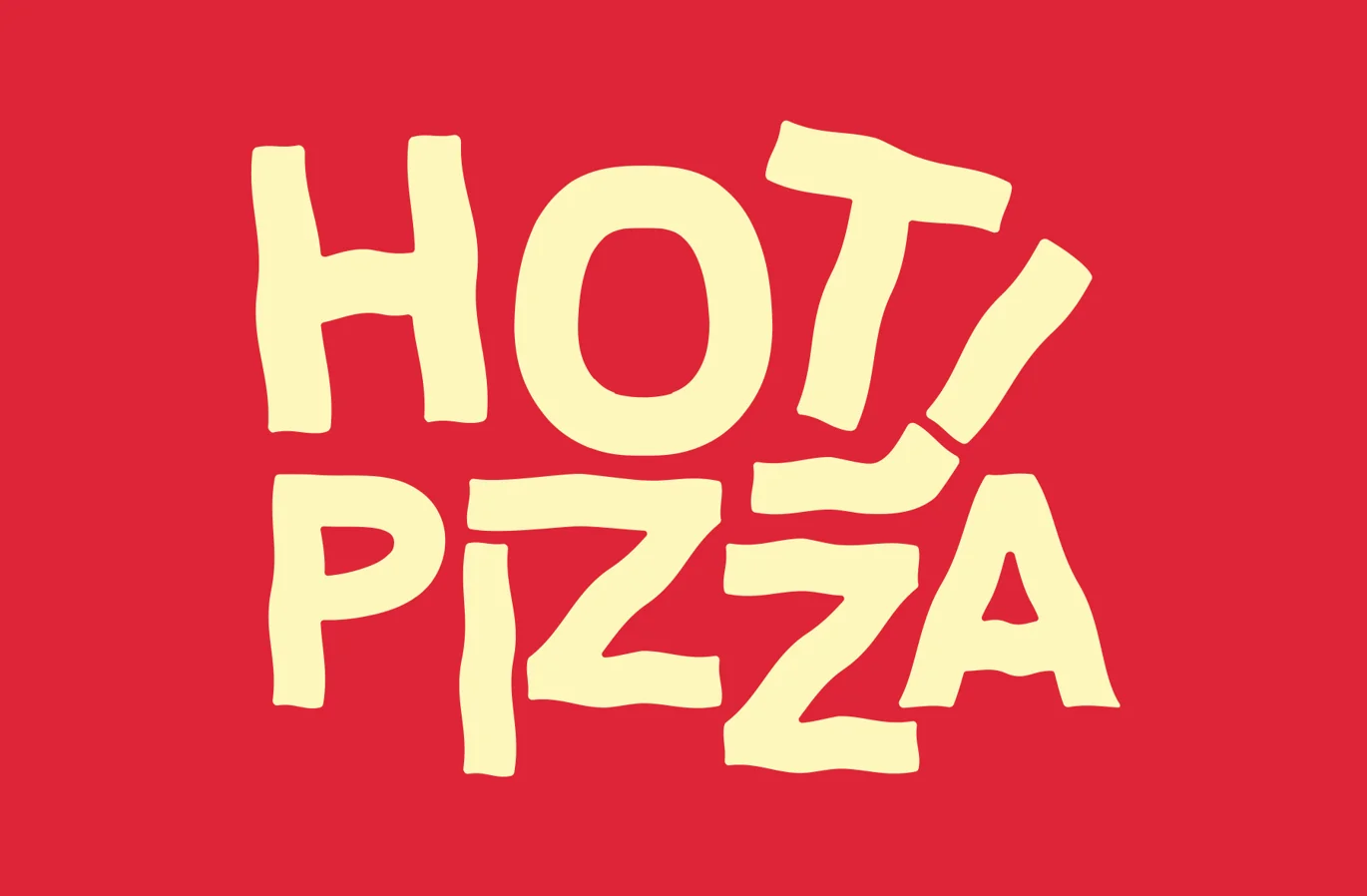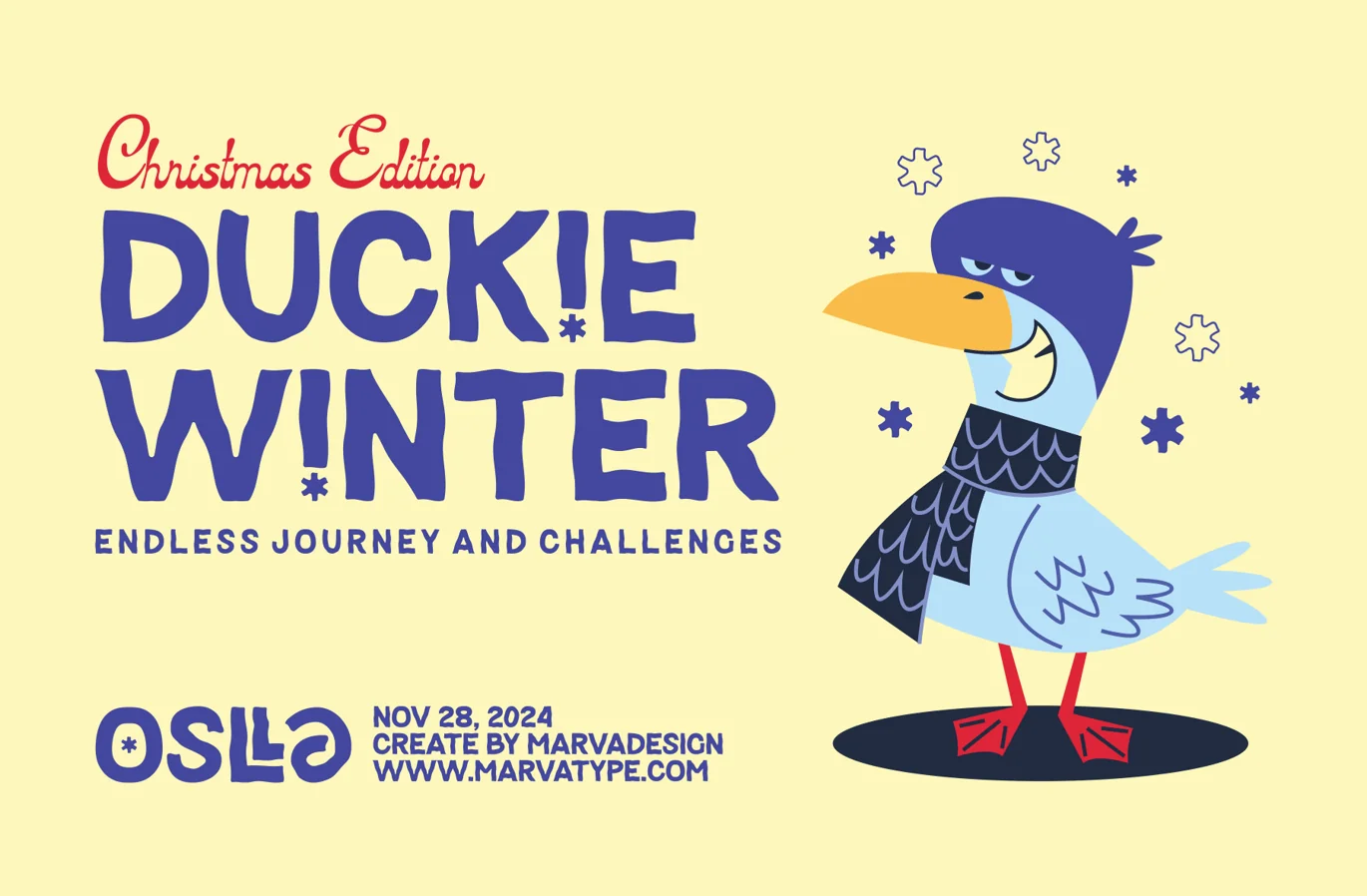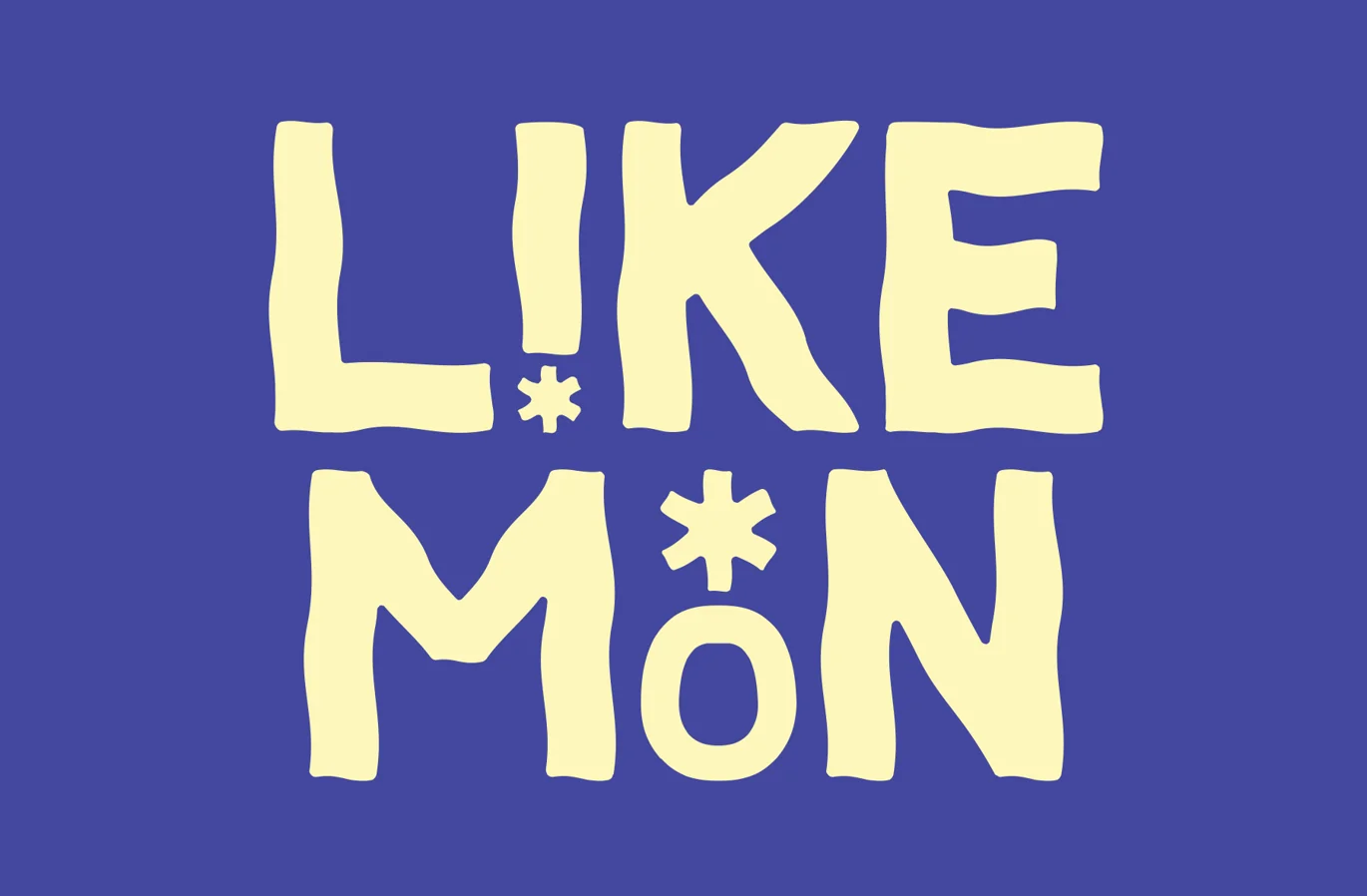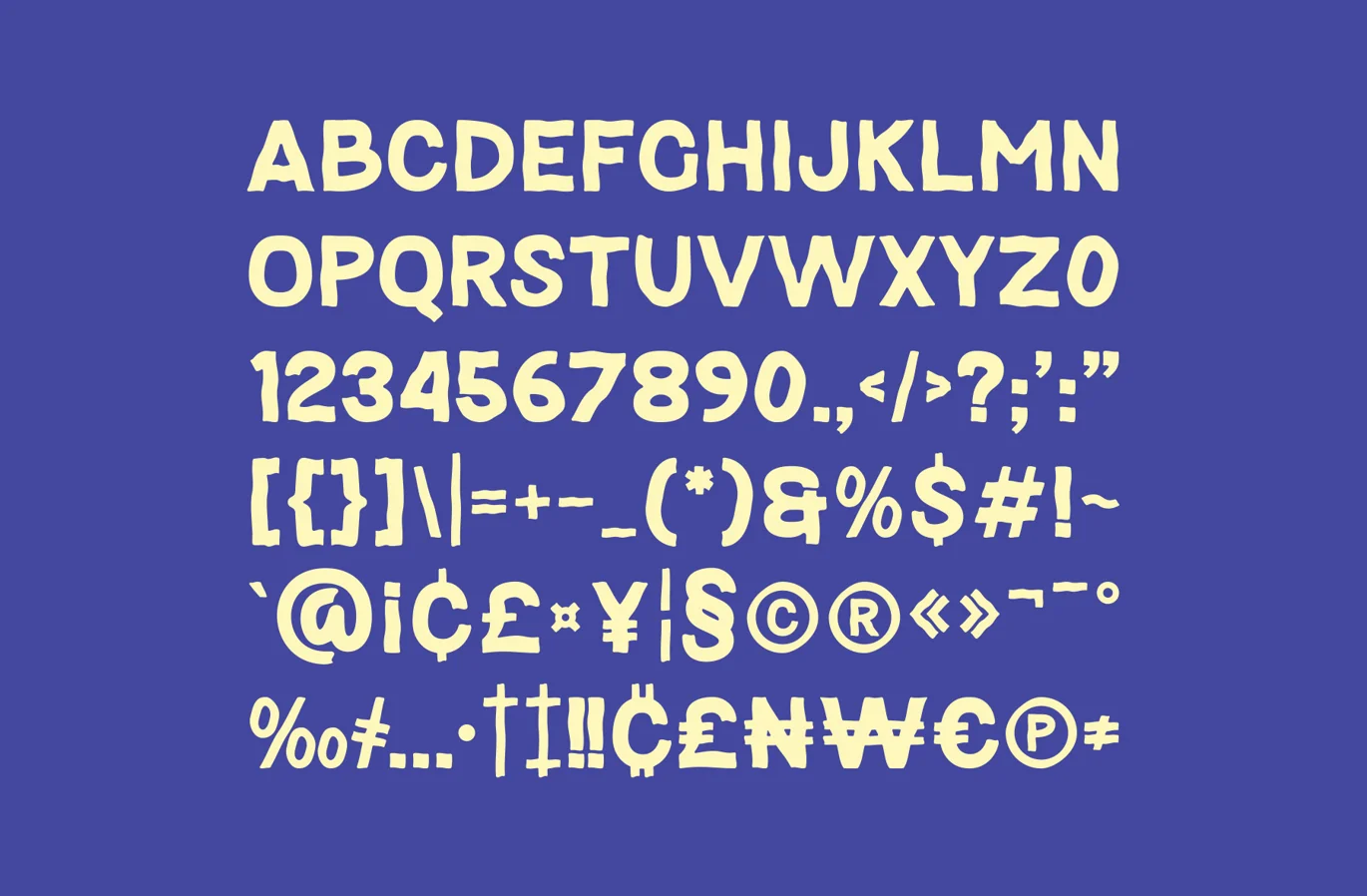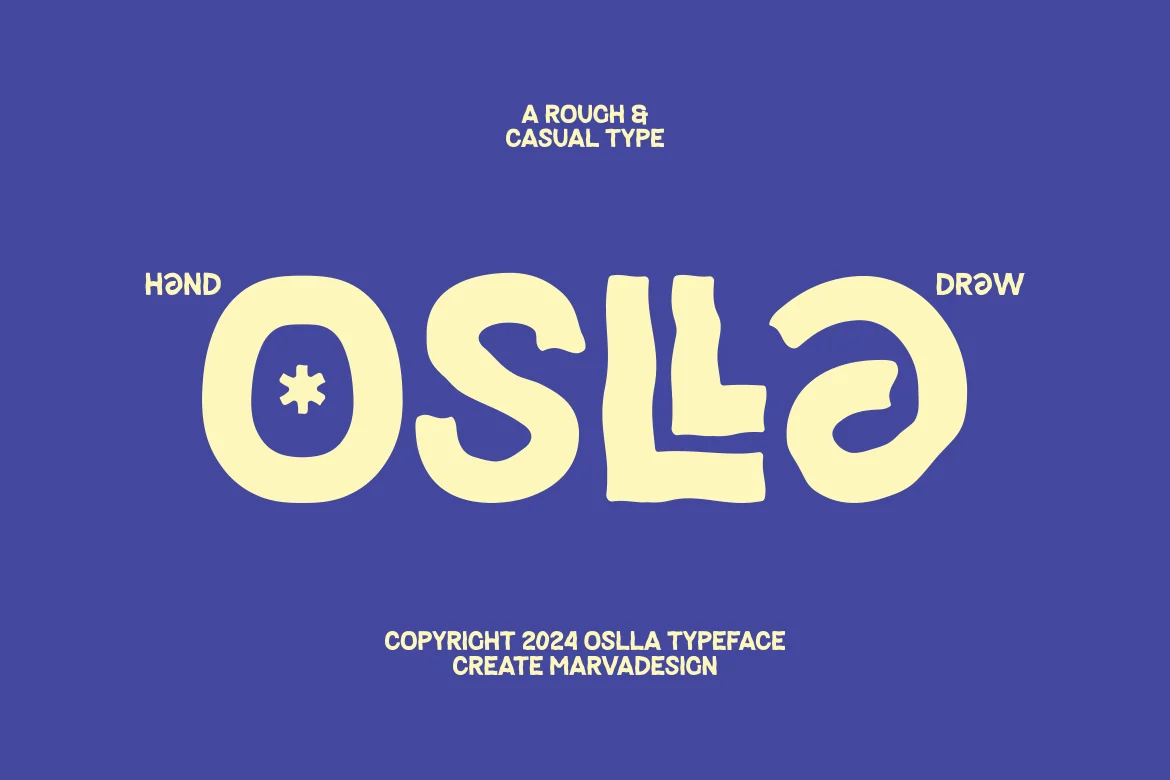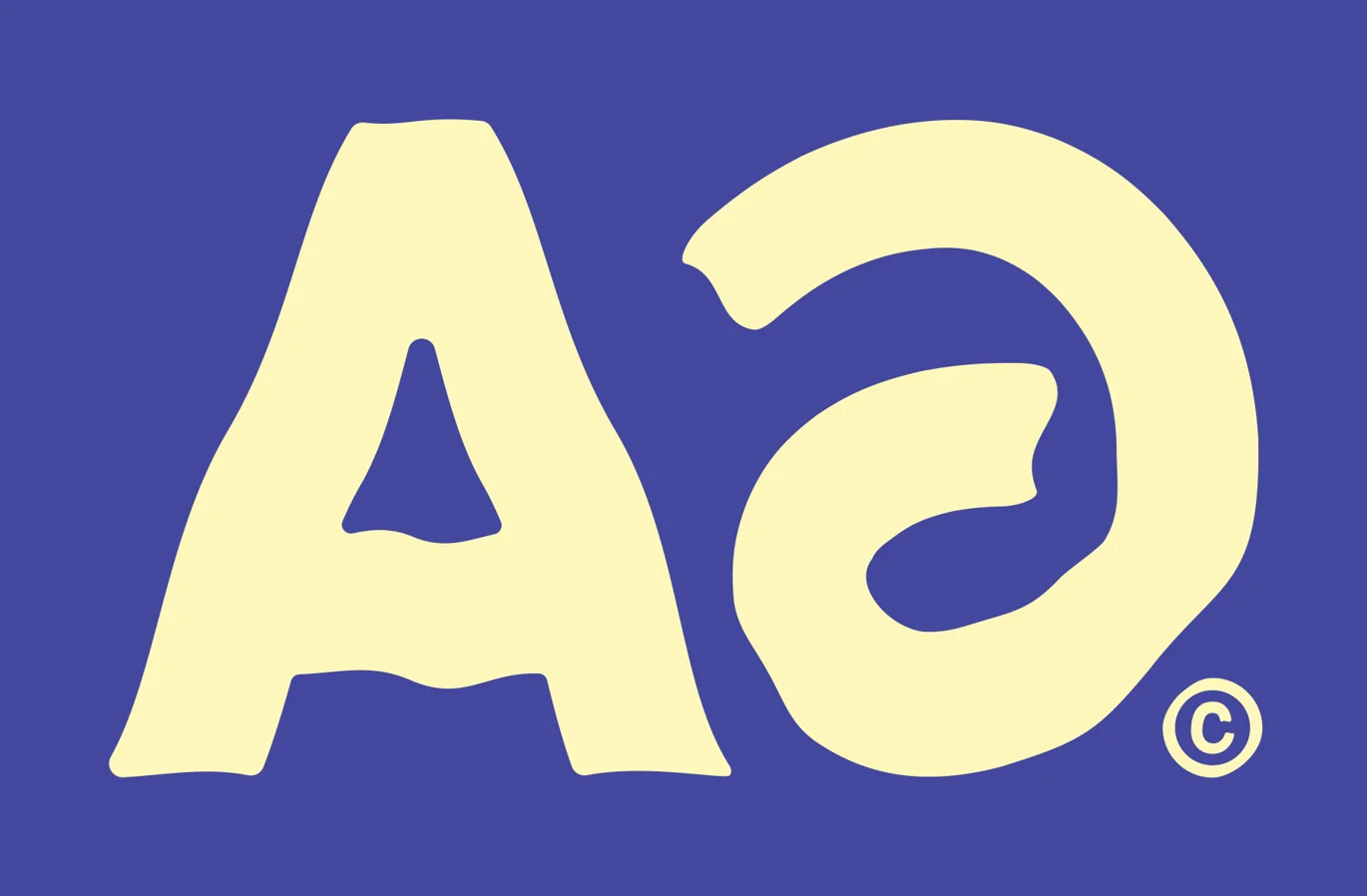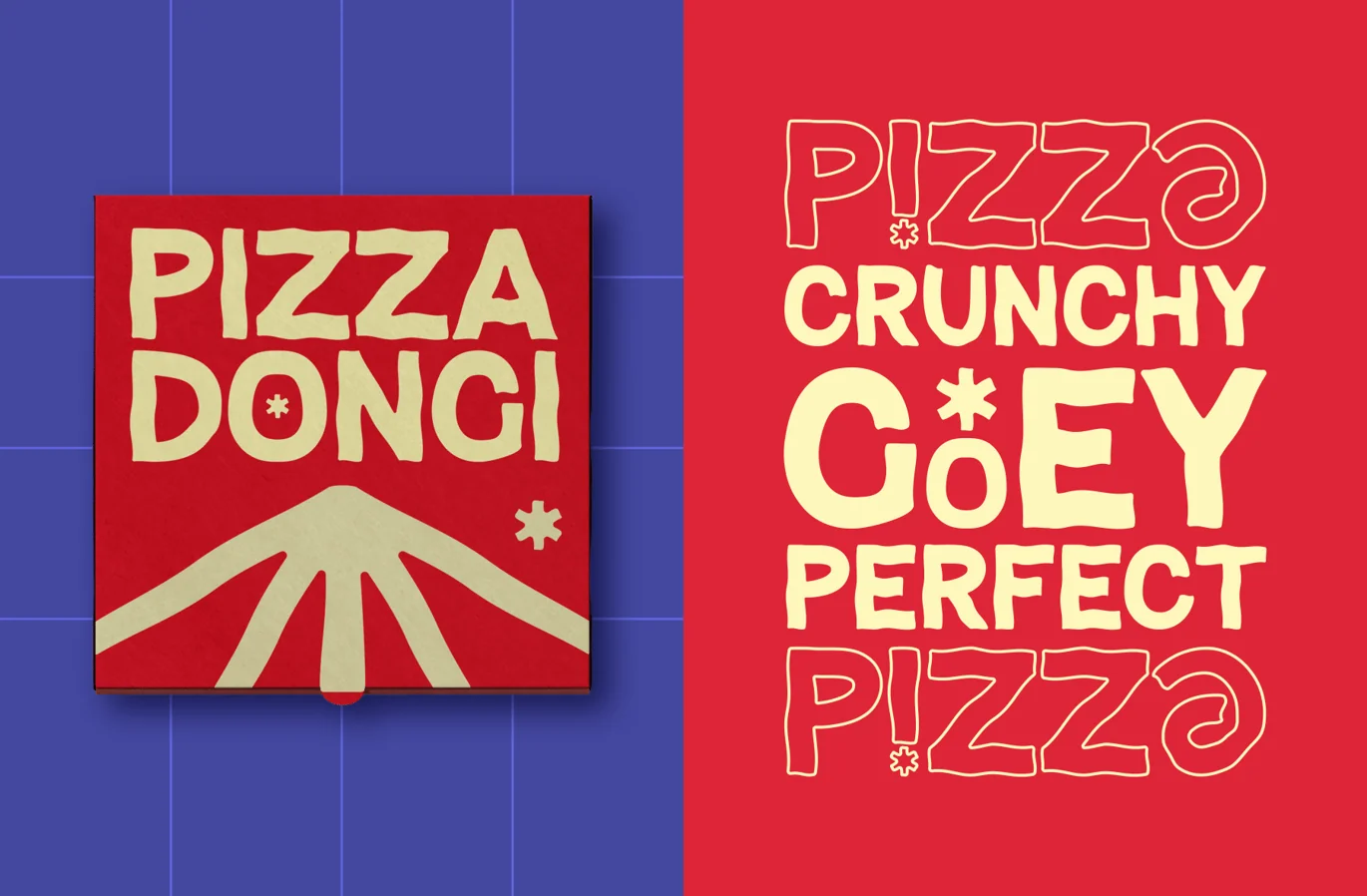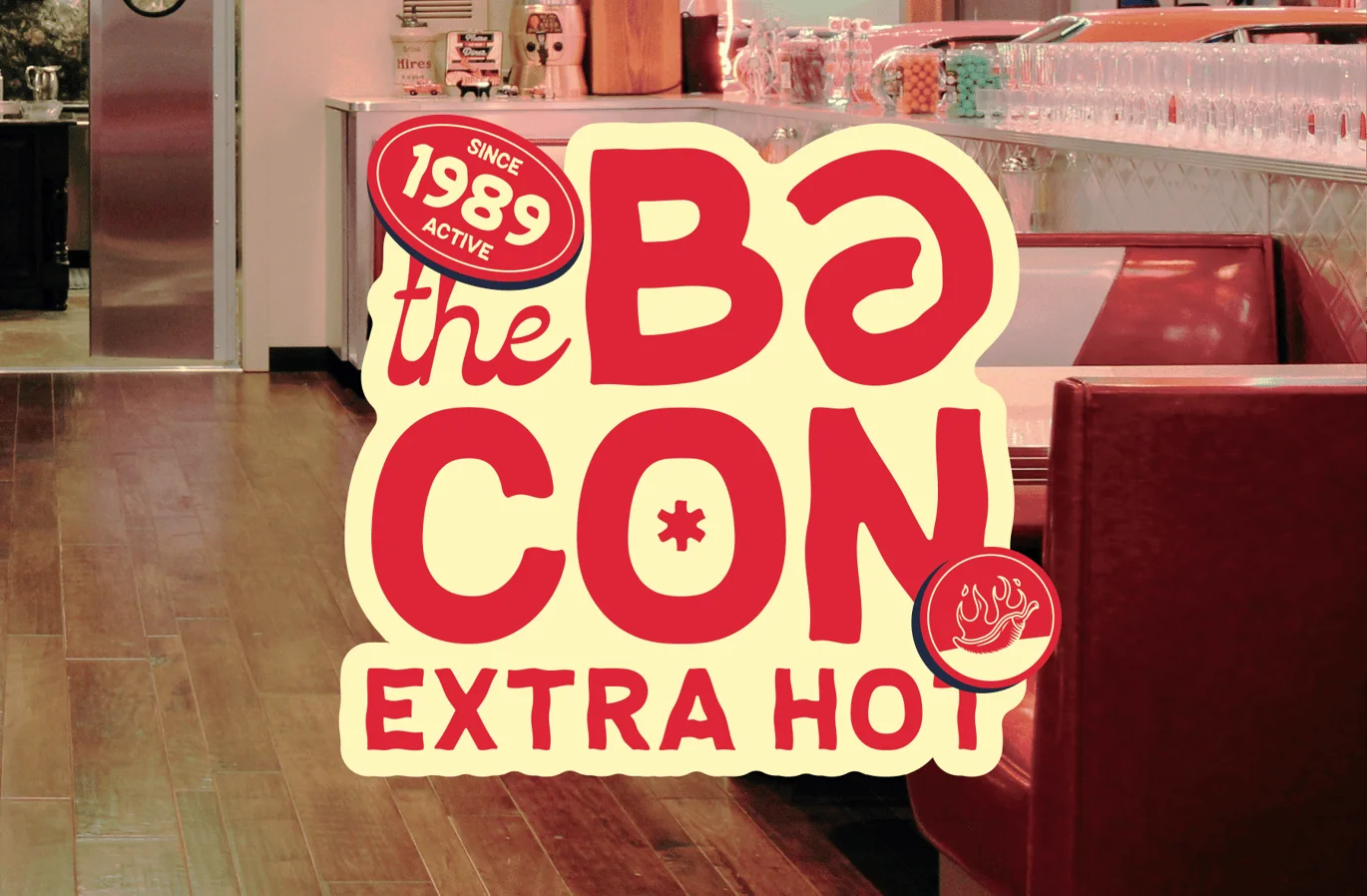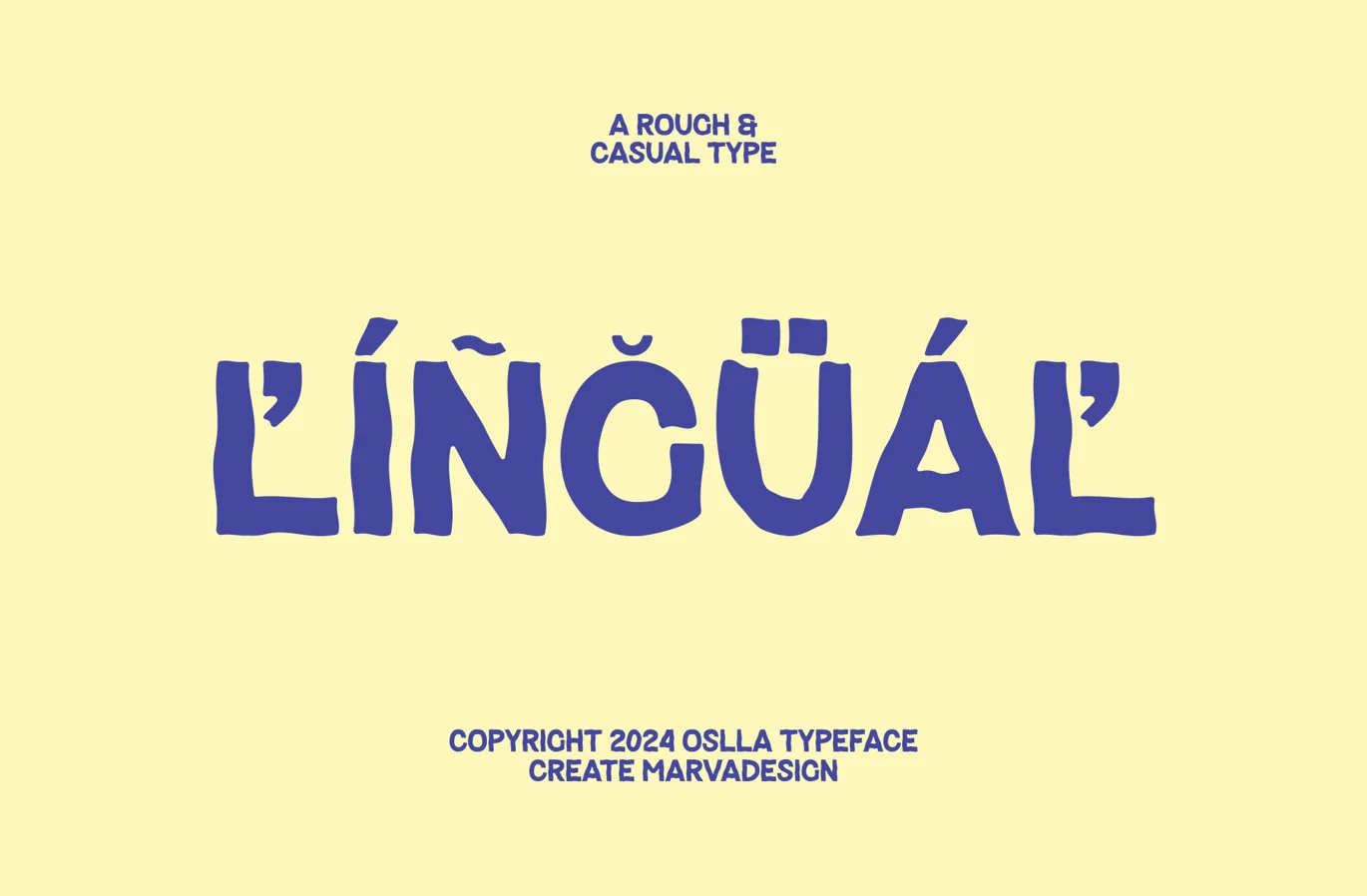
Oslla Font
Introducing Oslla is a bold and dynamic font with a Rough and Casual style, crafted using abstract wave brushes to create its distinct and expressive strokes. This font features unique characters in its alternatives and ligatures, adding a creative flair to your designs. Oslla is highly versatile and well-suited for various applications, including cartoon magazines, branding, packaging, and a wide range of other products. Its playful yet rugged appearance makes it perfect for adding a touch of personality and artistic vibe to your projects.